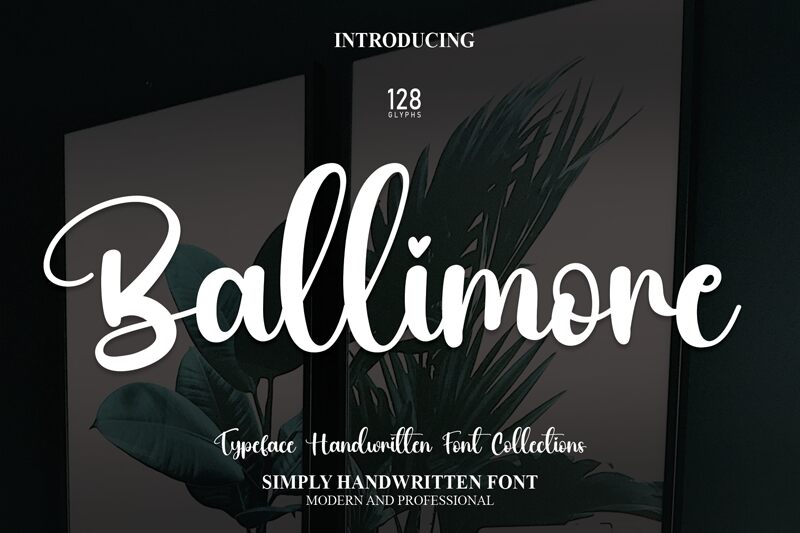
Ballimore
Ballimore, a mesmerizing calligraphy font designed by scratchones. With its graceful strokes and elegant curves, this font exudes sophistication and charm. Its versatility makes it suitable for a wide range of projects, from wedding invitations to branding materials. The semi-bold font weight adds a touch of modernity, making it perfect for fashion magazines or luxury product packaging. Whether you're designing a logo for a high-end boutique or creating stunning typography for an editorial layout, Ballimore effortlessly elevates any project with its timeless beauty and refined style. Unleash your creativity with Ballimore!
the latest style letters are perfect for wall displays, wedding invitations, social media post logos, advertisements, product packaging, product designs, labels, photography, watermarks, invitations, stationery, and any project that requires taste handwriting.